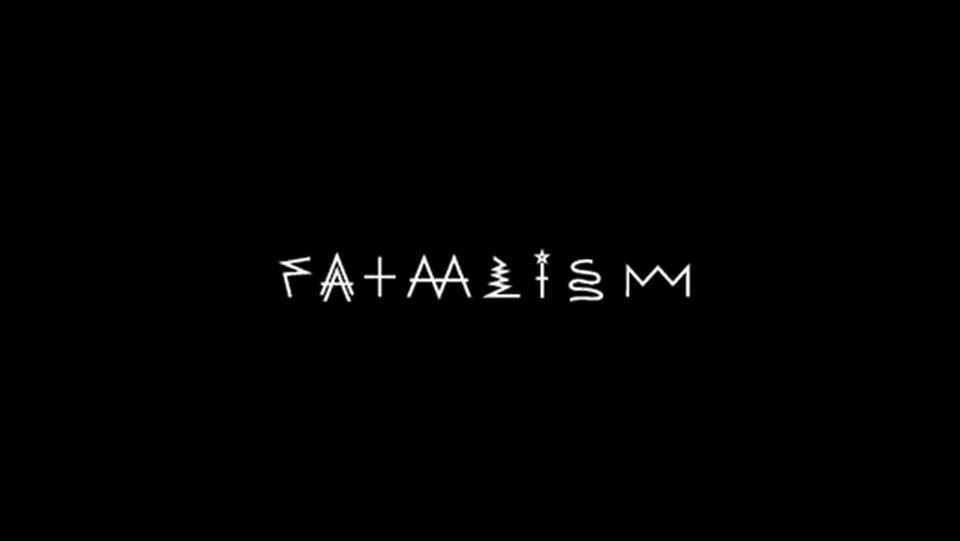
Download Fatalism font, a custom typeface with a unique look. Fatalism font is suitable for creative posters, short messages, prints, logos and other futuristic designs.